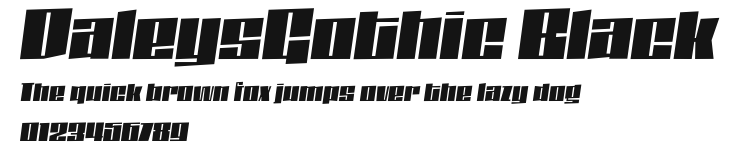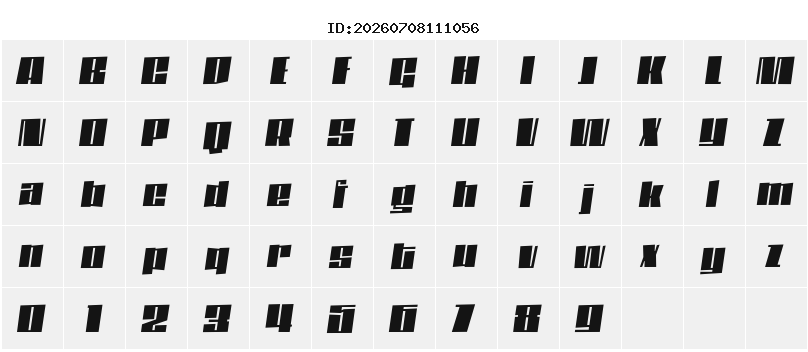
DaleysGothic Black Preview
• Font Name: DaleysGothic Black
• Full Font Name: DaleysGothic-BlackItalic
• PostScript Name: DaleysGothic-BlackItalic
About DaleysGothic Black.otf
DaleysGothic Black.otf is a modern, elegant sans-serif font designed for ultimate readability and visual harmony. Perfect for branding, headlines, web design, and print materials.